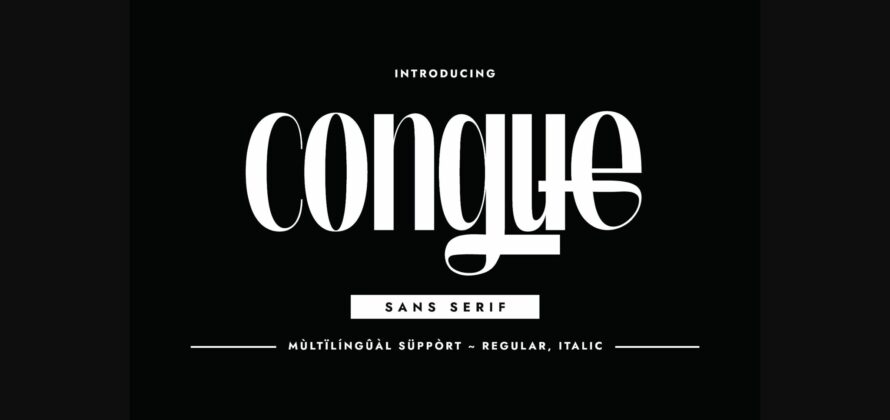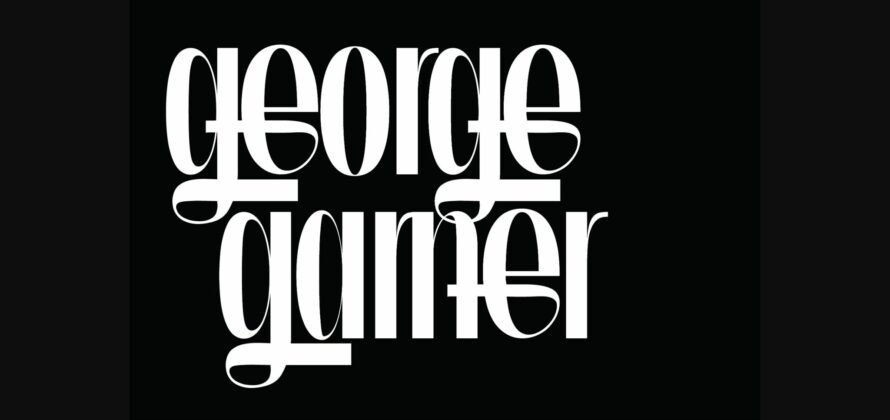
About Congue Font
Congue is a minimalist, elegant, compressed, and eye catchy sans serif typeface. Its tall and bold glyphs construction renders it a valid choice when you are working on a project that requires grabbing attention. Add it to your minimalist creative ideas and notice how many nice results can be easily obtained.